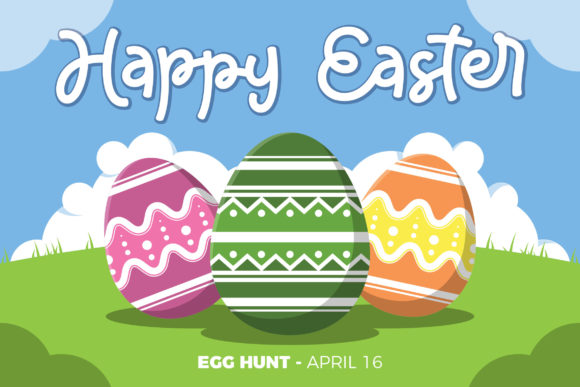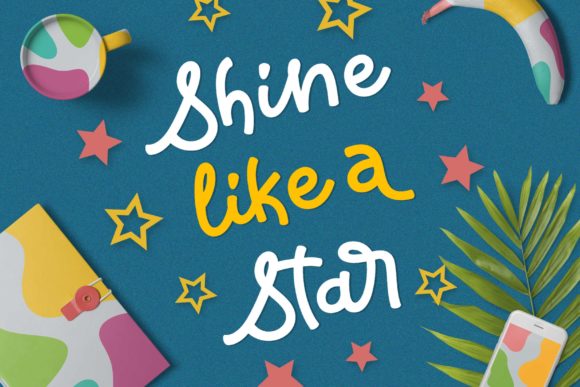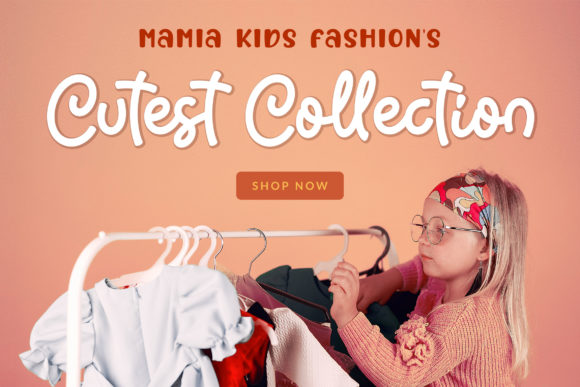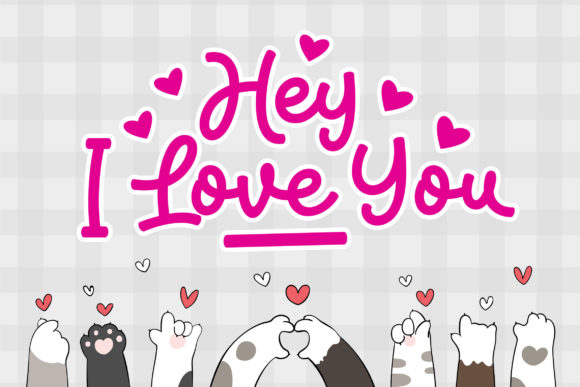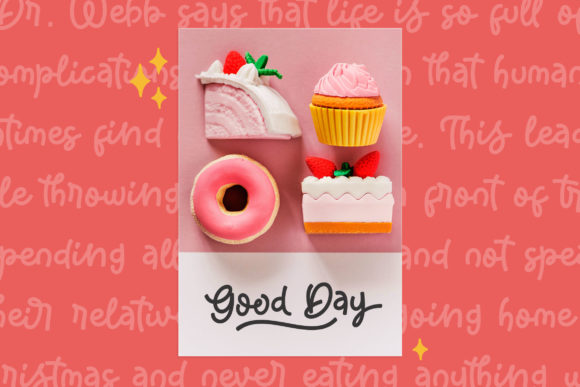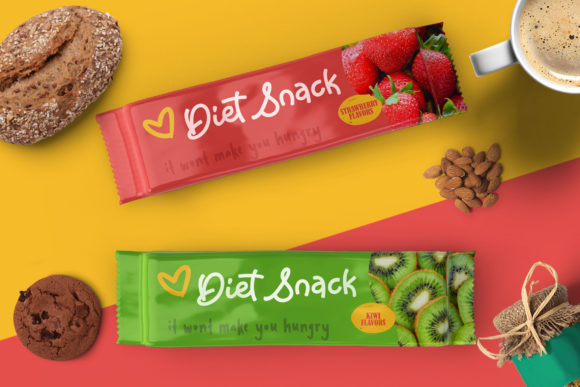
Easteria Font: The Ultimate Choice for Creative and Playful Designs
Easteria Font is a delightful handwritten font that embodies the essence of fun, cuteness, and authenticity. This enchanting font is designed to turn any creative idea into a true standout, making it a perfect choice for designers and crafters looking to add a touch of personality to their work.
The Characteristics of Easteria Font
Easteria Font is a unique and charming handwritten font that boasts a distinctive and endearing quality. Its carefully crafted letters are designed to evoke a sense of playfulness and whimsy, making it an ideal choice for projects that require a lighthearted and creative approach.
The font’s characteristics include:
- Handwritten style: Easteria Font is a genuine handwritten font, crafted with love and care to give it a personal and authentic feel.
- Playful and whimsical: The font’s playful and whimsical nature makes it perfect for designs that require a touch of fun and creativity.
- Unique lettering: Each letter in Easteria Font is carefully crafted to be distinct and recognizable, ensuring that your designs stand out from the crowd.
- Authentic feel: The font’s authentic feel makes it perfect for designs that require a personal and human touch.
Why Choose Easteria Font?
Easteria Font is an excellent choice for designers and crafters looking to add a touch of personality to their work. Here are some reasons why:
- Versatility: Easteria Font is a versatile font that can be used for a wide range of projects, from digital designs to print materials.
- High-quality design: Easteria Font is designed to high standards, ensuring that your designs look professional and polished.
- Unique designs: With Easteria Font, you can create unique and eye-catching designs that stand out from the crowd.
Easteria Font is a perfect choice for designers and crafters looking to add a touch of personality to their work. Whether you’re creating:
- Digital designs: Easteria Font is perfect for digital designs, such as social media graphics, blog posts, and website headers.
- Print materials: The font is also suitable for print materials, such as brochures, flyers, and business cards.
- Craft projects: Easteria Font is a great choice for craft projects, such as handmade cards, scrapbooking, and DIY gifts.
Tips for Using Easteria Font
Here are some tips for using Easteria Font to get the most out of this beautiful font:
- Experiment with colors: Easteria Font looks great in a variety of colors, so don’t be afraid to experiment and find the perfect color scheme for your design.
- Mix and match: Try mixing and matching Easteria Font with other fonts to create a unique and eye-catching design.
- Use it for headings: Easteria Font is perfect for headings and titles, making it a great choice for designers looking to add a touch of personality to their work.
Easteria Font is a delightful handwritten font that embodies the essence of fun, cuteness, and authenticity. With its unique and charming lettering, this font is perfect for designers and crafters looking to add a touch of personality to their work. Whether you’re creating digital designs, print materials, or craft projects, Easteria Font is a great choice. So why not give it a try and see how it can transform your designs?